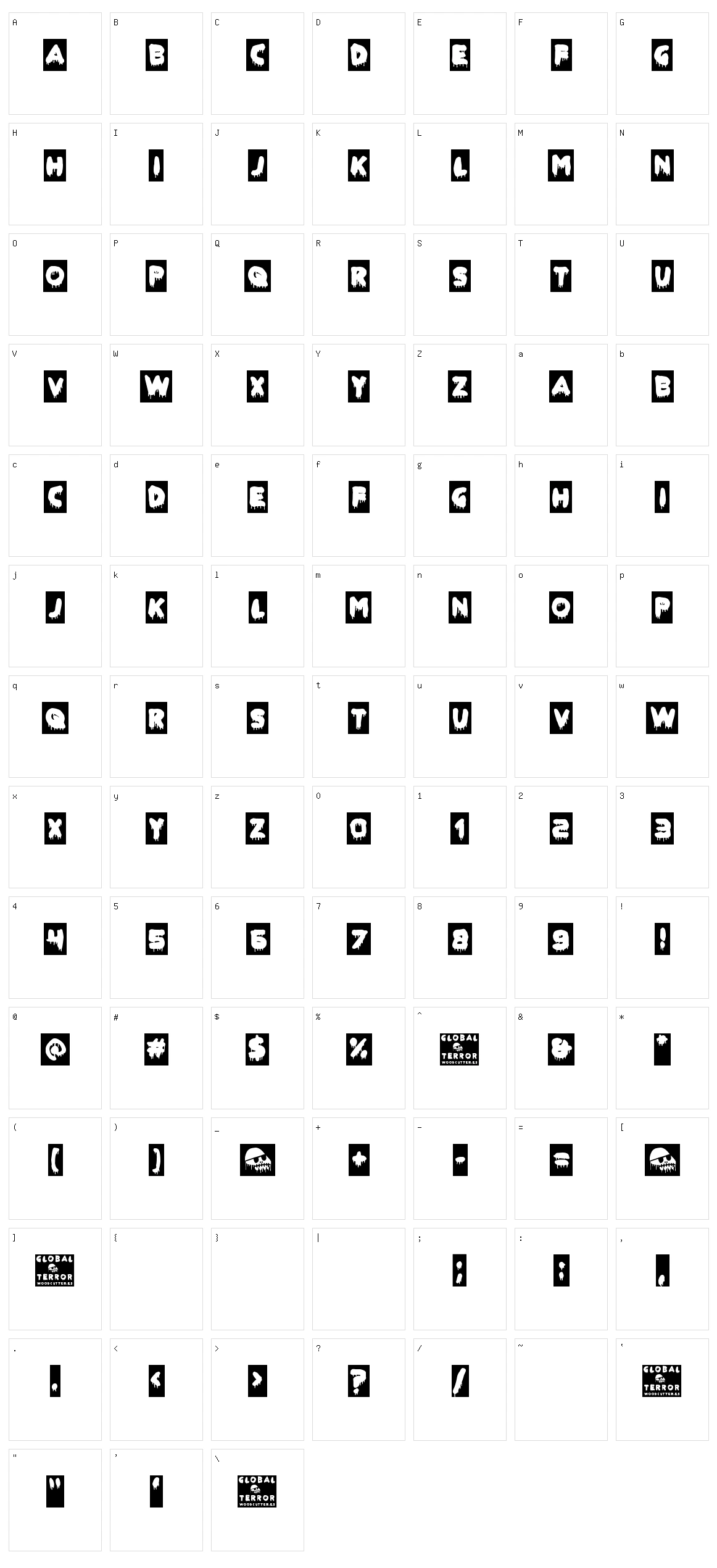
The free font Global Terror is carefully designed by Woodcutter, showcasing a thoughtful balance of creativity and usability and falls under the Horror font style. When you download the ZIP file, it contains only 19.12 KB of font files, making it lightweight and quick to download. Please review the license details below to understand permitted usage and distribution rights. If license information is not available, we recommend using this font for personal projects only or contacting the author directly for commercial usage permissions.